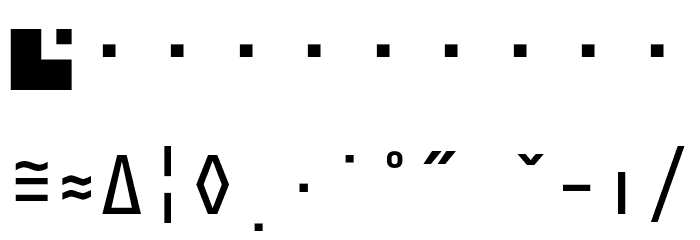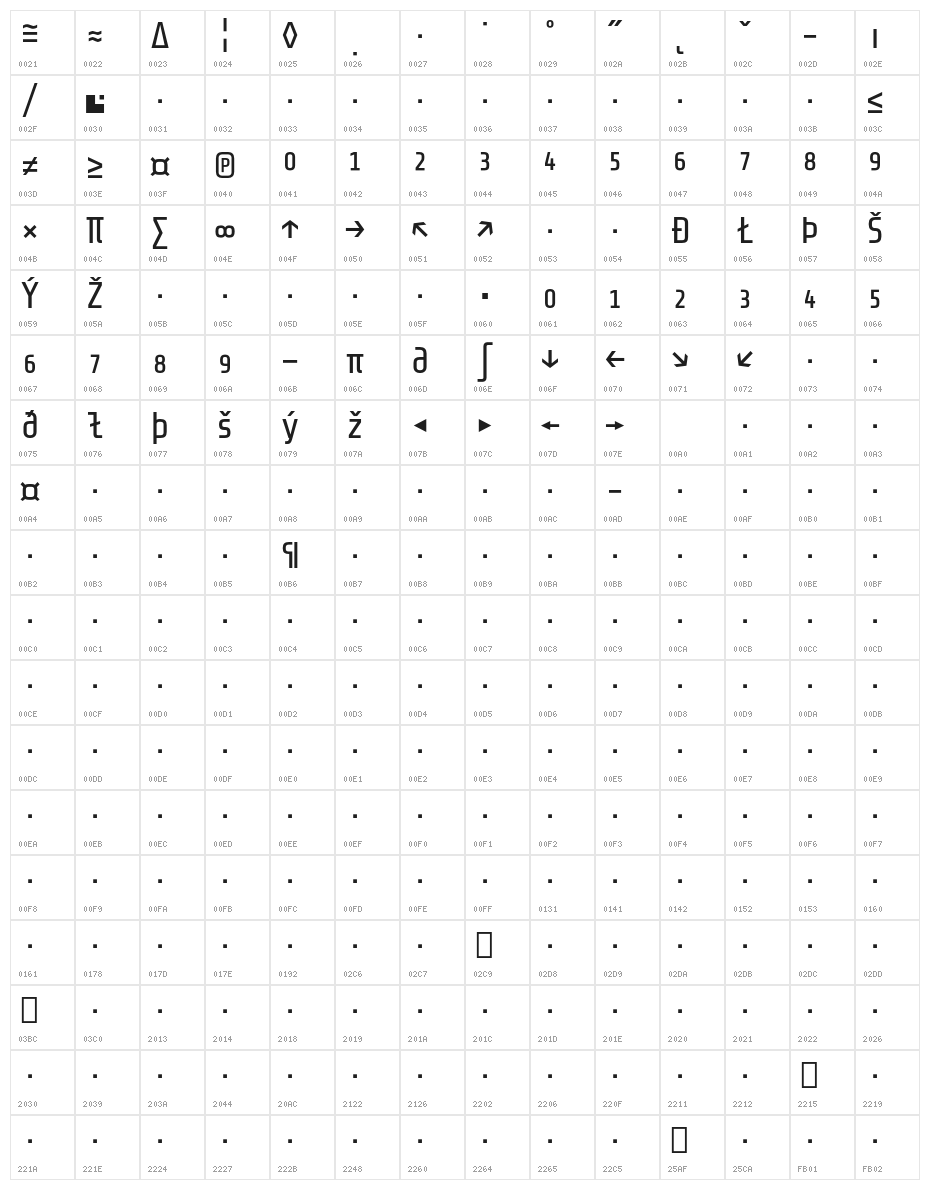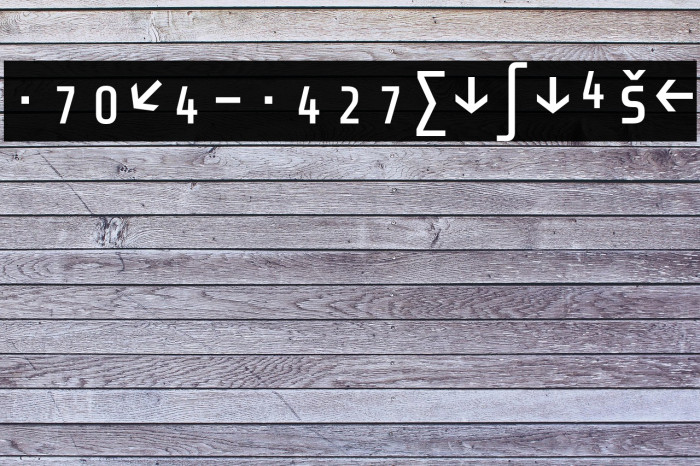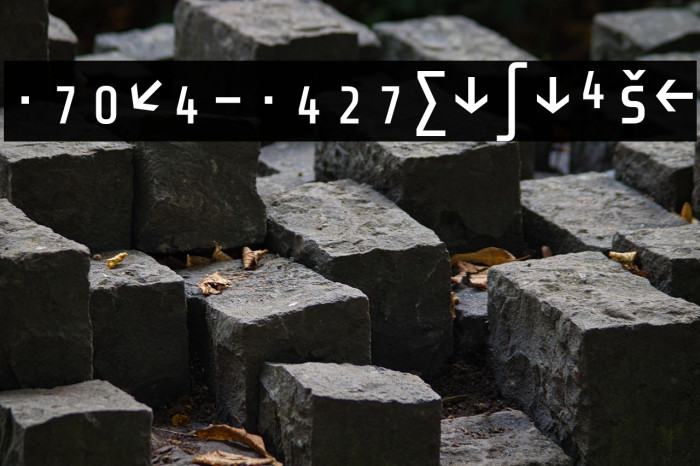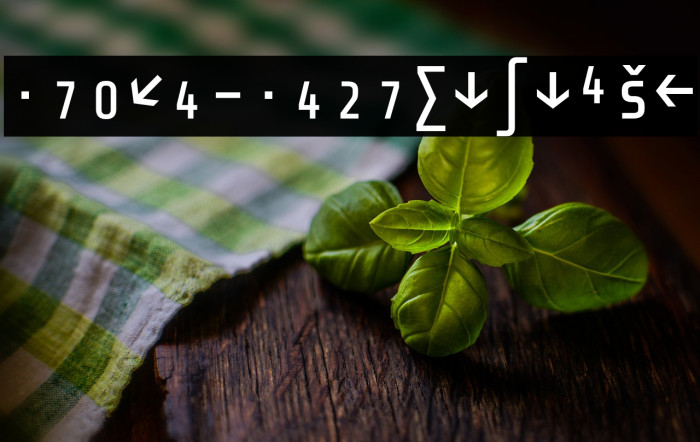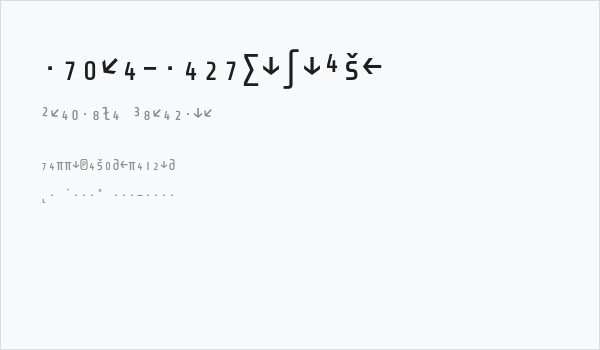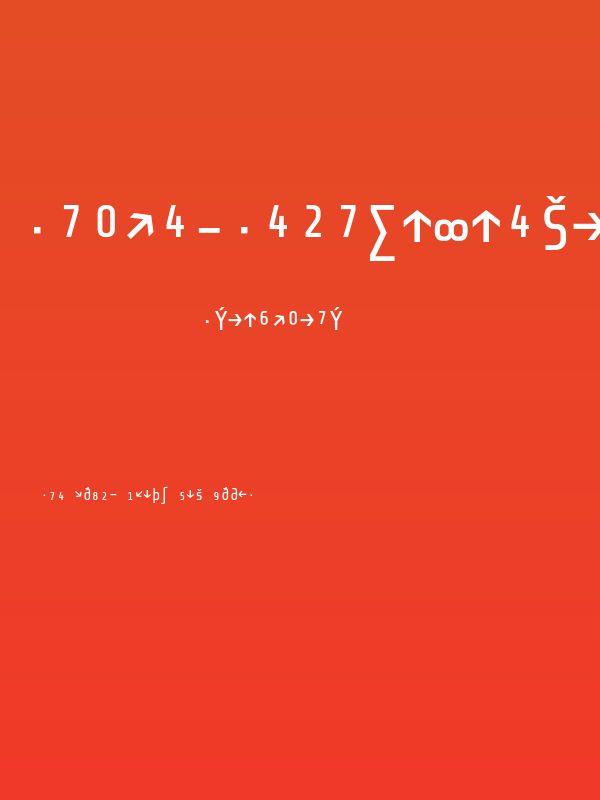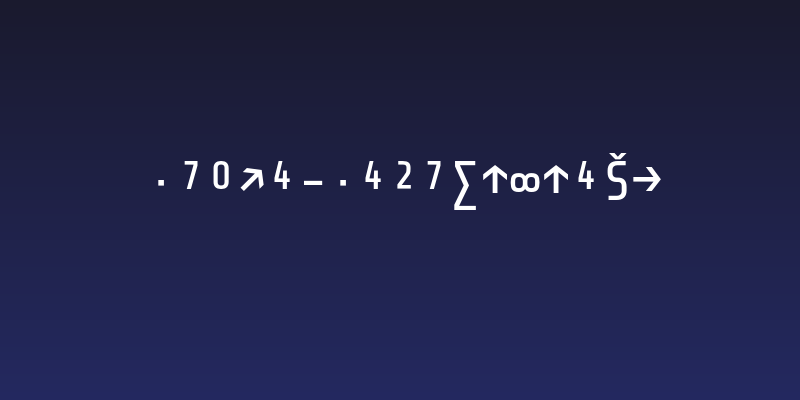
Share-TechMonoExp Font
Share-TechMonoExp Description
This font exhibits a monospaced design with a modern, technical aesthetic. Each character is uniformly spaced, providing a clean and organized appearance. The characters are slightly condensed, contributing to a compact look that is ideal for coding and technical documentation. The font features a geometric structure with straight lines and sharp angles, enhancing its futuristic feel. The numerals and special characters are distinct and clear, making them suitable for data-heavy applications. The uppercase and lowercase letters maintain a consistent style, ensuring readability and uniformity across different text sizes.
| Use Case | Coding, Technical documentation, Data visualization |
| Proposed Projects | Ideal for coding environments, technical documentation, and data visualization projects. |